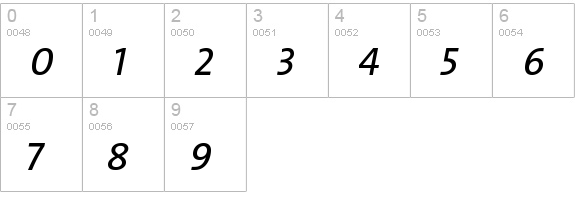
TheSans Caps Italic is a distinctive, italic variant in the TheSans typeface family \xE2\x80\x94 well suited to design and typography projects.
TheSans Caps Italic font is a sleek and stylish typeface that exudes a sense of elegance and sophistication. With its unique combination of bold capital letters and a subtle slant, this font adds a touch of flair to any design project. Featuring clean lines and a modern aesthetic, TheSans Caps Italic is perfect for creating eye-catching headlines, logos, and branding materials. Its distinctive italicized style adds a dynamic and energetic feel to any text, making it ideal for conveying a sense of movement and excitement. But what sets TheSans Caps Italic font apart is its availability as a free download from FontsMarket.com. This means that designers and creatives can easily access this exceptional font without any cost or hassle. By making it freely available, FontsMarket.com aims to empower artists and professionals to unleash their creativity and bring their visions to life. Whether you're crafting a magazine layout, designing a website, or creating a striking poster, TheSans Caps Italic font will undoubtedly make a lasting impression. Its versatility and timeless appeal make it suitable for a wide range of design projects, from corporate presentations to artistic endeavors. So why settle for ordinary when you can elevate your designs with TheSans Caps Italic font? Download it for free today at FontsMarket.com and experience the power of this remarkable typeface. Unleash your creativity and let TheSans Caps Italic font be your secret weapon for creating visually stunning and impactful designs.